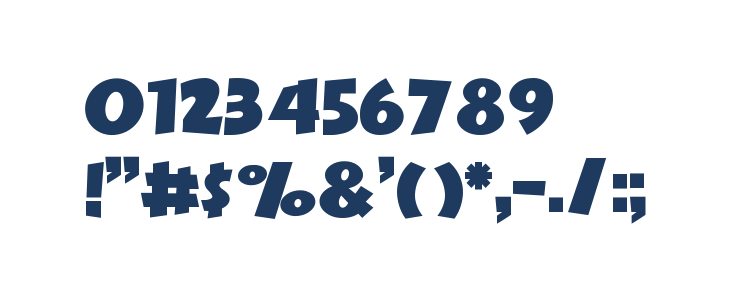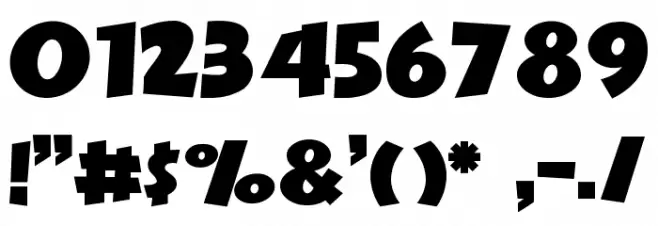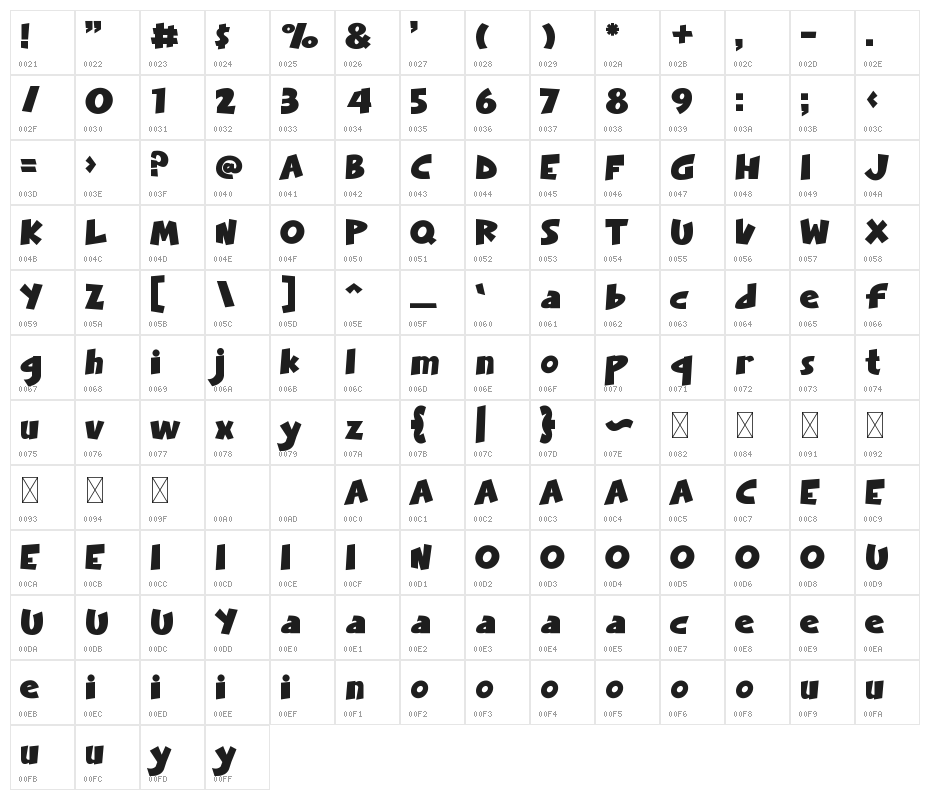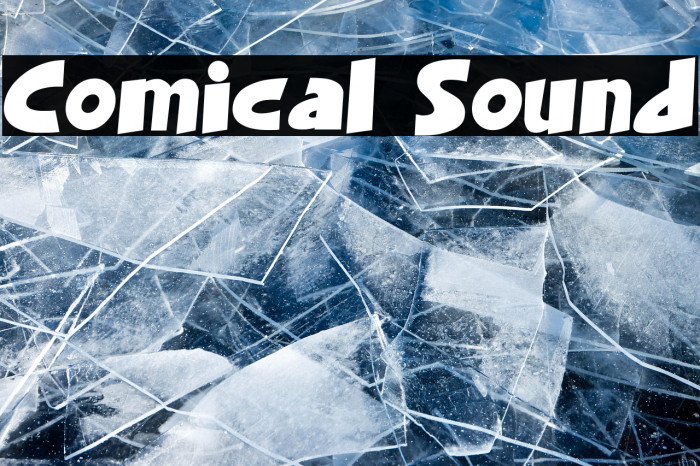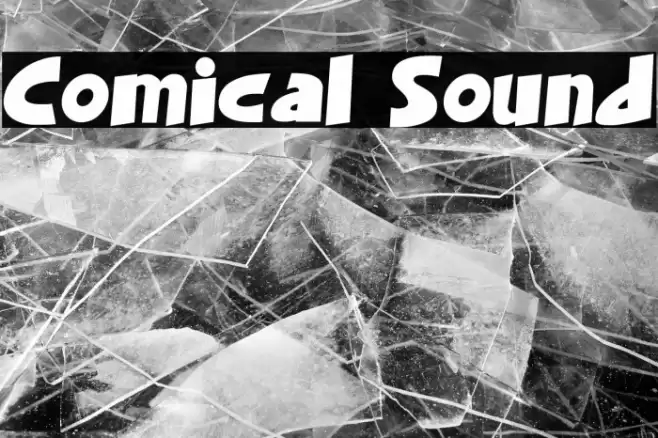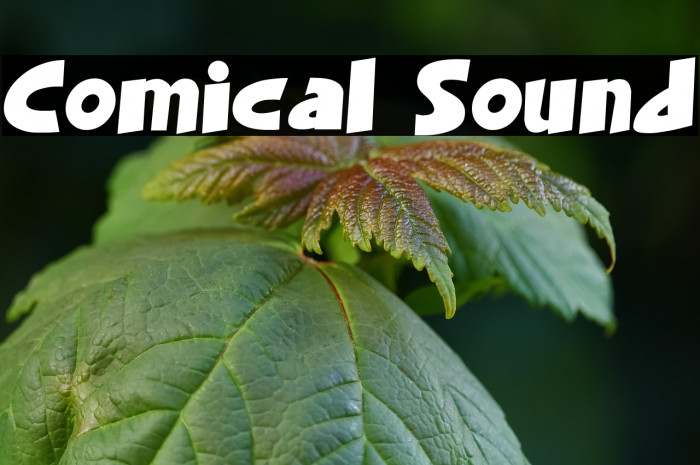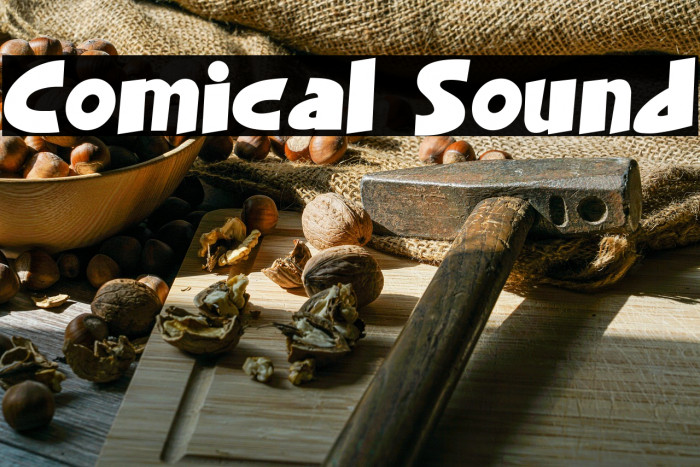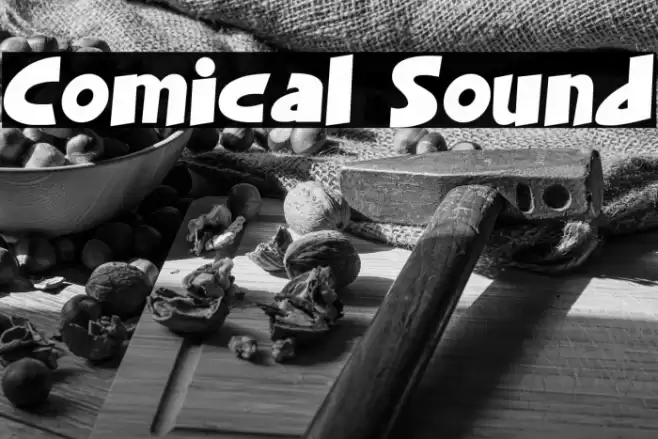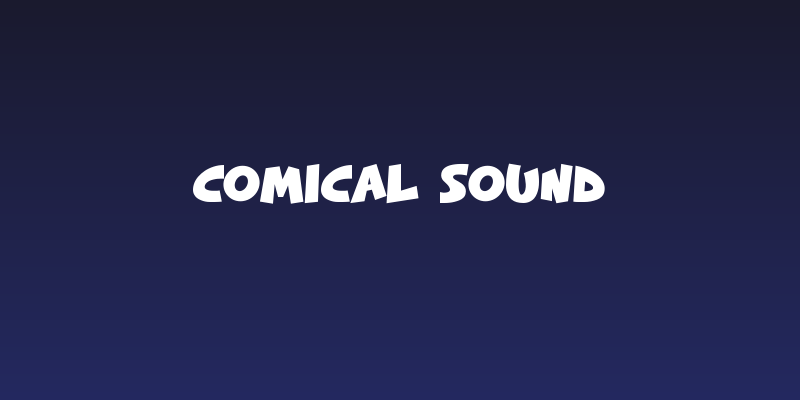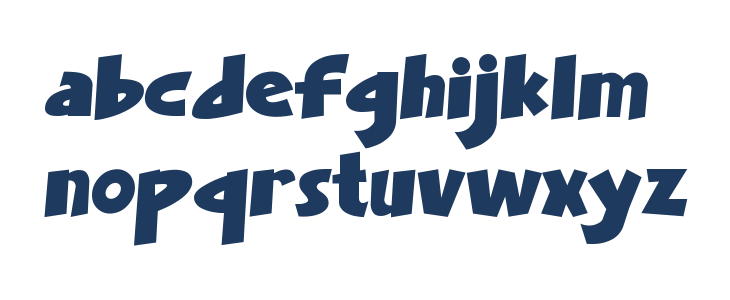
Comical Sound Font
Comical Sound Description
This playful and bold font features exaggerated, irregular shapes that give it a whimsical and energetic appearance. The characters are slightly tilted, adding to the dynamic and fun aesthetic. The uppercase and lowercase letters maintain a consistent style, with rounded edges and varying stroke widths that create a lively, cartoonish feel. The numbers and special characters follow the same playful design, making this font ideal for projects that require a touch of humor and creativity. Its bold presence ensures it stands out, making it perfect for eye-catching designs.
| Overall Style | Playful, Cartoonish, Energetic |
| Proposed Projects | Ideal for comic books, children's books, playful branding, posters, and party invitations. |